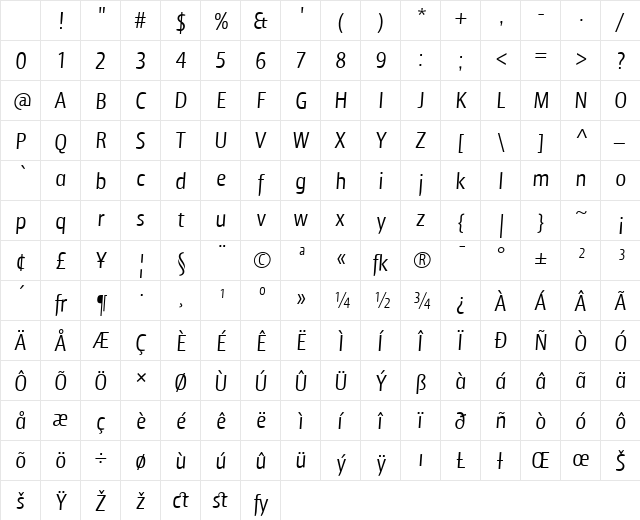
Complete DioneItalic Regular glyph index. Displaying only characters natively supported by DioneItalic Regular font.
DioneItalic is a composed and adaptable typeface that performs quietly and consistently across a wide range of design contexts. The slanted form adds forward momentum and visual energy.
Pro Tip: Use DioneItalic for emphasis, pull quotes, and subheadings where its slanted energy can add rhythm to the layout.